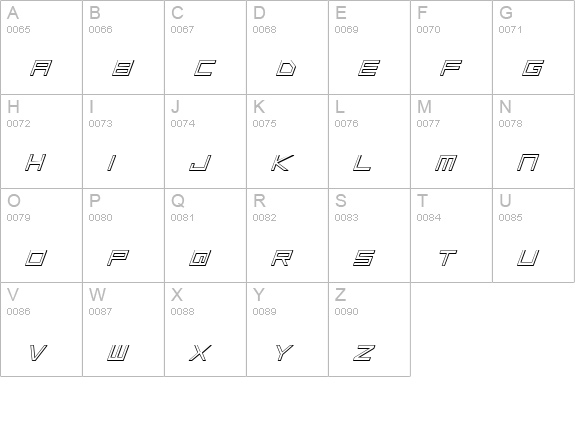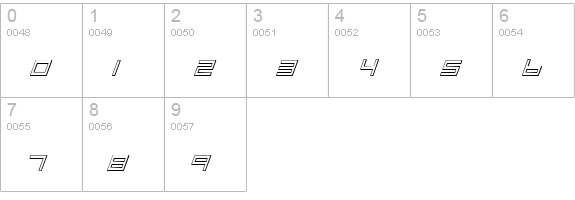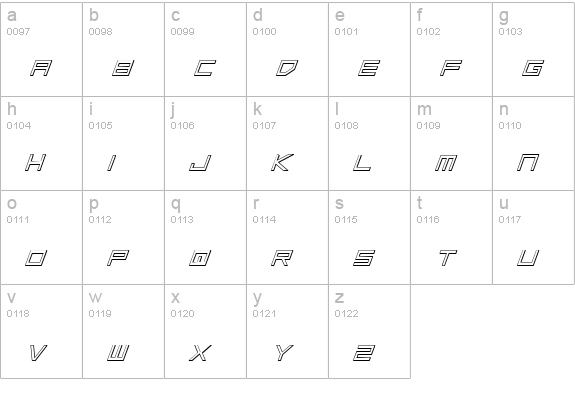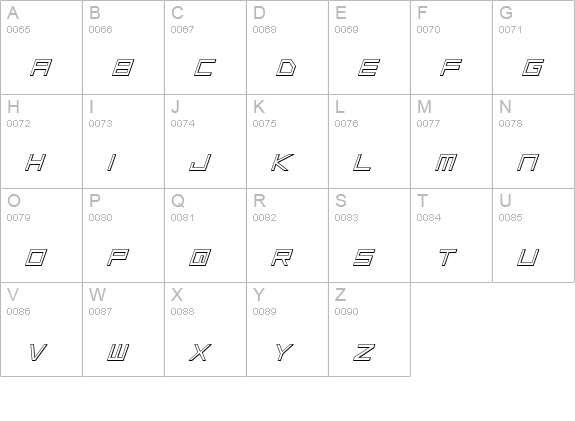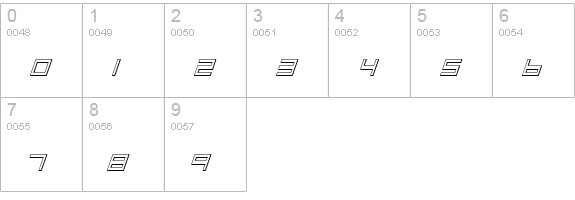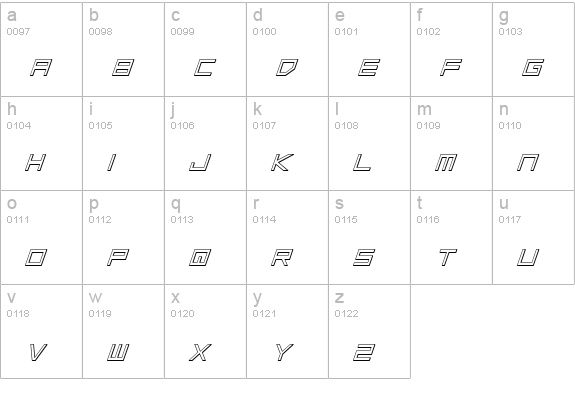
Low Gun Screen Outline Italic is a distinctive, italic variant in the Low typeface family \xE2\x80\x94 well suited to design and typography projects.
The Low Gun Screen Outline Italic font is a modern and stylish typeface that exudes a sleek and edgy aesthetic. Its unique design features sharp and clean lines that give it a contemporary look perfect for a wide range of design projects. The italicized version adds a touch of sophistication and flair to any text. Whether used for headlines, logos, posters, or branding materials, this font is sure to make a bold statement. Best of all, the Low Gun Screen Outline Italic font is available for free download at FontsMarket.com. This means you can easily access and use this versatile font without any cost, making it a valuable addition to your font collection. Don't miss out on the opportunity to enhance your designs with this eye-catching typeface that is both modern and free to use.